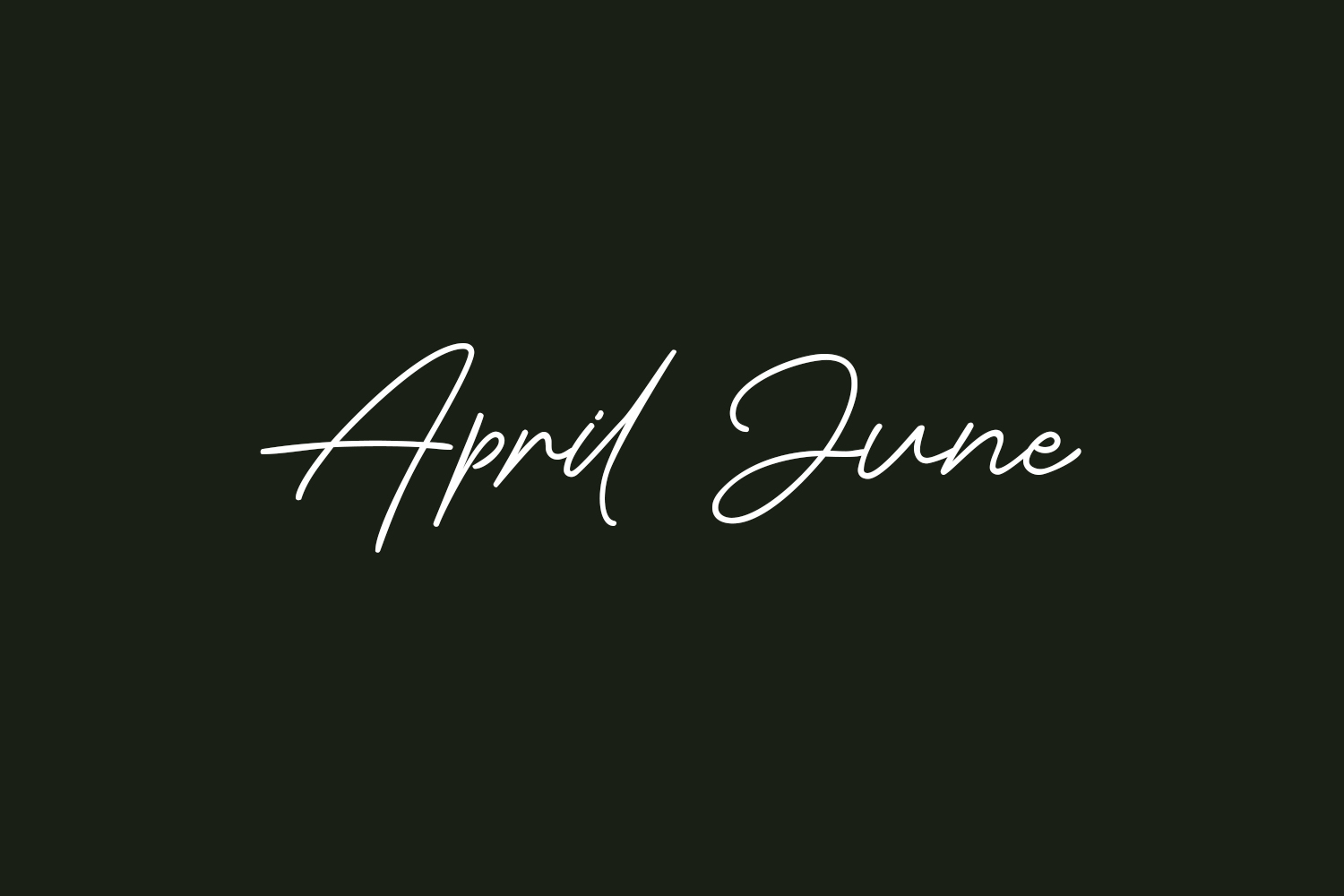
April June Font
April June Font - If you want the full version and license for commercial use, you can purchase. Introducing april june handwritten script font. Web this product free for personal use. Web april june is a modern and elegant script font perfect for posters, logos, magazines, book covers, banners, and. It’s a modern and elegant script font that was designed.
It’s a modern and elegant script font that was designed. Web april june is a modern and elegant script font perfect for posters, logos, magazines, book covers, banners, and. Introducing april june handwritten script font. If you want the full version and license for commercial use, you can purchase. Web this product free for personal use.
Web april june is a modern and elegant script font perfect for posters, logos, magazines, book covers, banners, and. It’s a modern and elegant script font that was designed. Web this product free for personal use. Introducing april june handwritten script font. If you want the full version and license for commercial use, you can purchase.
Web this product free for personal use. Introducing april june handwritten script font. Web april june is a modern and elegant script font perfect for posters, logos, magazines, book covers, banners, and. If you want the full version and license for commercial use, you can purchase. It’s a modern and elegant script font that was designed.
Introducing april june handwritten script font. Web april june is a modern and elegant script font perfect for posters, logos, magazines, book covers, banners, and. If you want the full version and license for commercial use, you can purchase. It’s a modern and elegant script font that was designed. Web this product free for personal use.
If you want the full version and license for commercial use, you can purchase. Web april june is a modern and elegant script font perfect for posters, logos, magazines, book covers, banners, and. Introducing april june handwritten script font. It’s a modern and elegant script font that was designed. Web this product free for personal use.
It’s a modern and elegant script font that was designed. Web this product free for personal use. If you want the full version and license for commercial use, you can purchase. Introducing april june handwritten script font. Web april june is a modern and elegant script font perfect for posters, logos, magazines, book covers, banners, and.
Web april june is a modern and elegant script font perfect for posters, logos, magazines, book covers, banners, and. Web this product free for personal use. Introducing april june handwritten script font. If you want the full version and license for commercial use, you can purchase. It’s a modern and elegant script font that was designed.
If you want the full version and license for commercial use, you can purchase. Web this product free for personal use. Web april june is a modern and elegant script font perfect for posters, logos, magazines, book covers, banners, and. Introducing april june handwritten script font. It’s a modern and elegant script font that was designed.
If you want the full version and license for commercial use, you can purchase. Web this product free for personal use. Web april june is a modern and elegant script font perfect for posters, logos, magazines, book covers, banners, and. It’s a modern and elegant script font that was designed. Introducing april june handwritten script font.
Web this product free for personal use. If you want the full version and license for commercial use, you can purchase. Web april june is a modern and elegant script font perfect for posters, logos, magazines, book covers, banners, and. It’s a modern and elegant script font that was designed. Introducing april june handwritten script font.
Web this product free for personal use. Introducing april june handwritten script font. If you want the full version and license for commercial use, you can purchase. Web april june is a modern and elegant script font perfect for posters, logos, magazines, book covers, banners, and. It’s a modern and elegant script font that was designed.
Web april june is a modern and elegant script font perfect for posters, logos, magazines, book covers, banners, and. If you want the full version and license for commercial use, you can purchase. Introducing april june handwritten script font. Web this product free for personal use. It’s a modern and elegant script font that was designed.
Introducing April June Handwritten Script Font.
Web april june is a modern and elegant script font perfect for posters, logos, magazines, book covers, banners, and. It’s a modern and elegant script font that was designed. If you want the full version and license for commercial use, you can purchase. Web this product free for personal use.